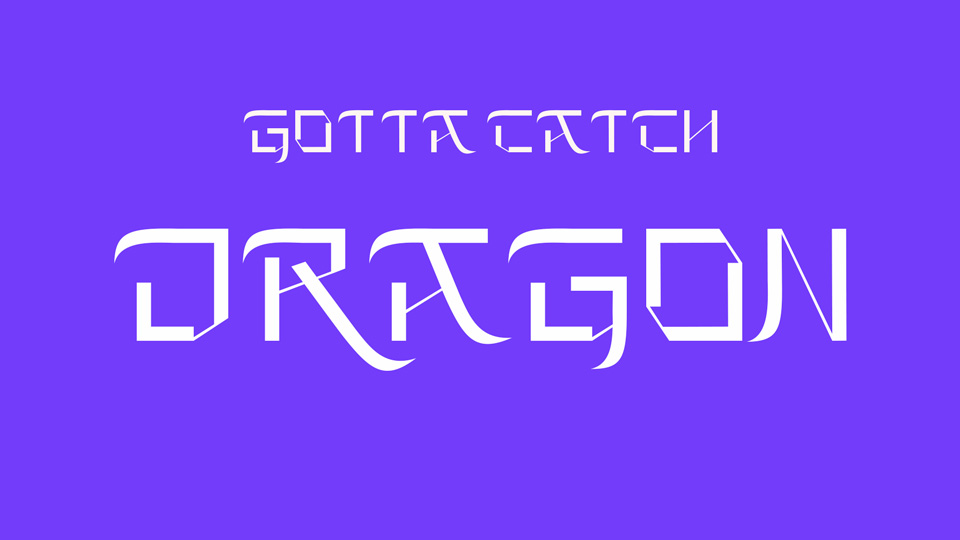
Download Gotta Catch Dragon font, an experimental calligraphic typeface designed during a type design initiation workshop given by Lucas Descroix in March 2021.